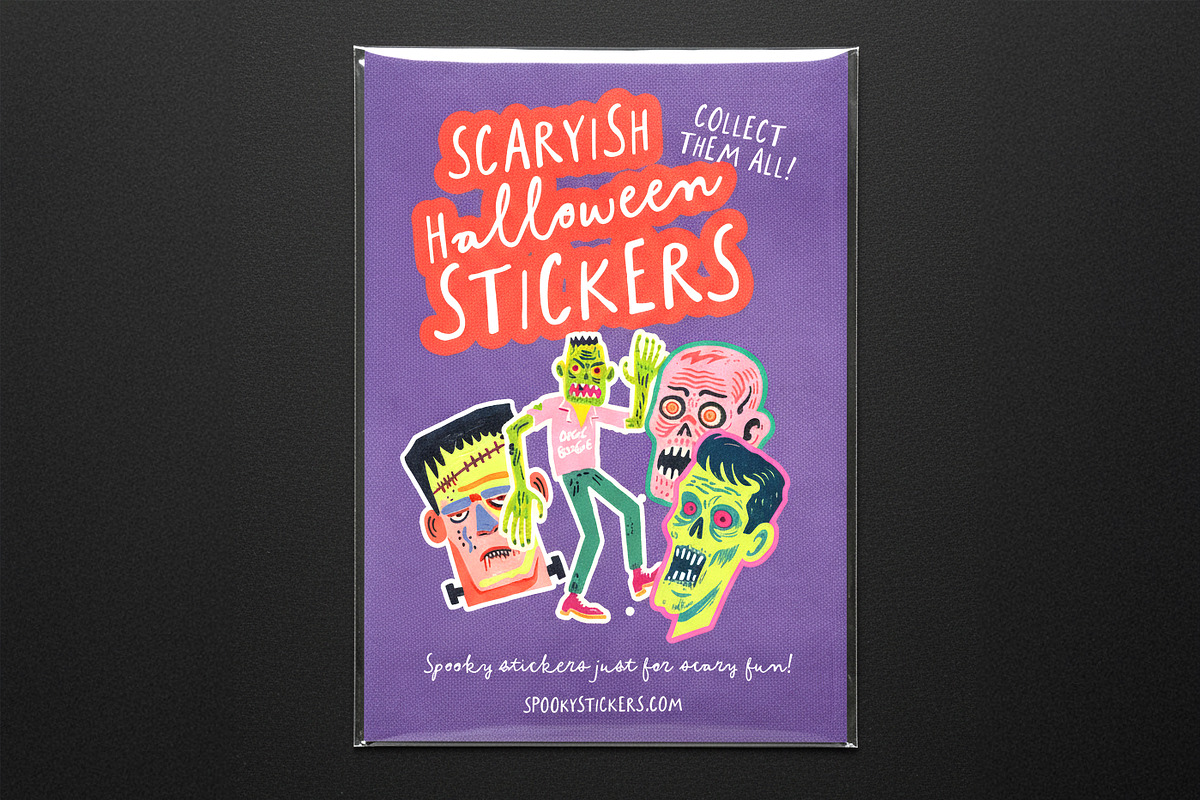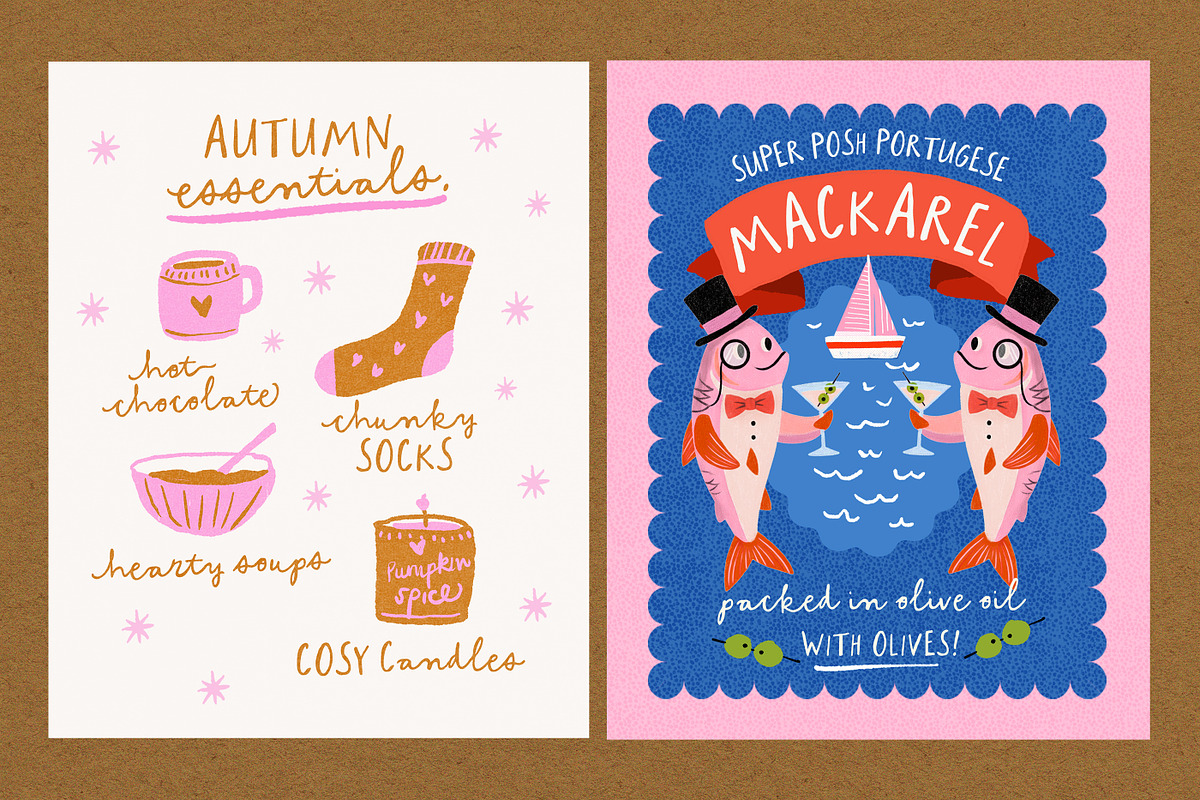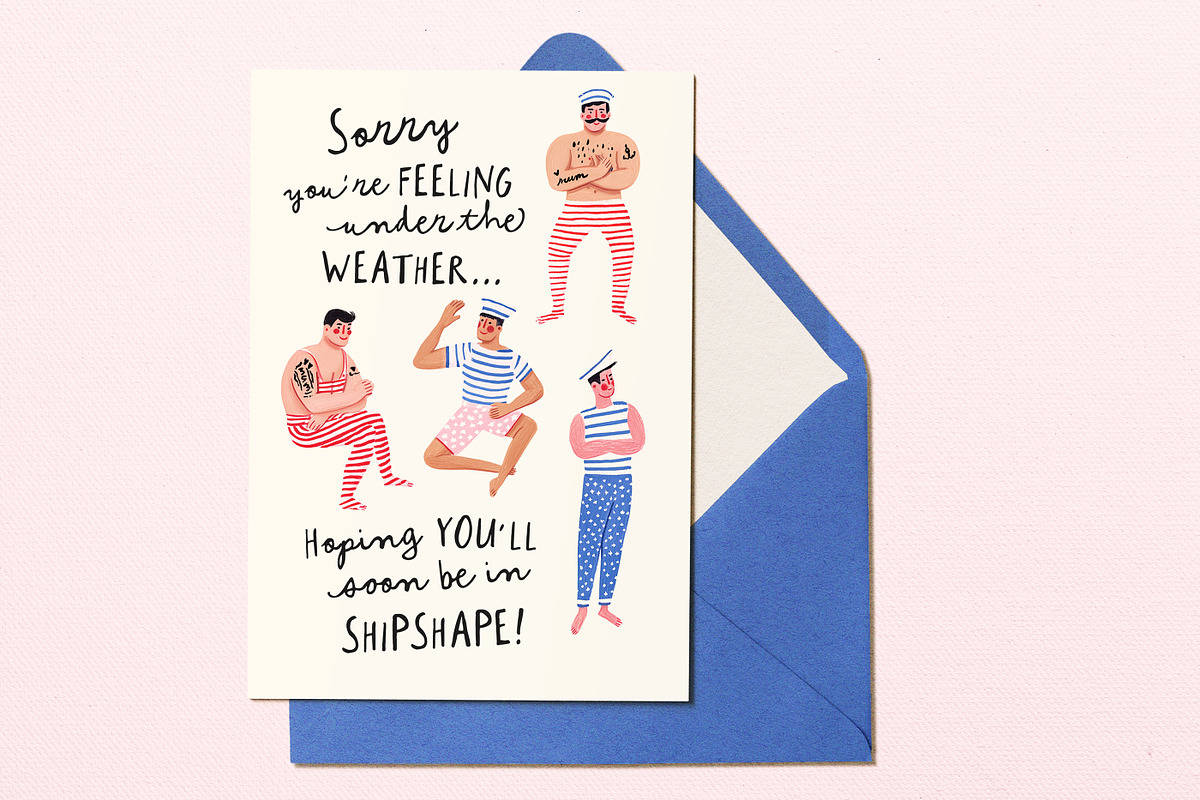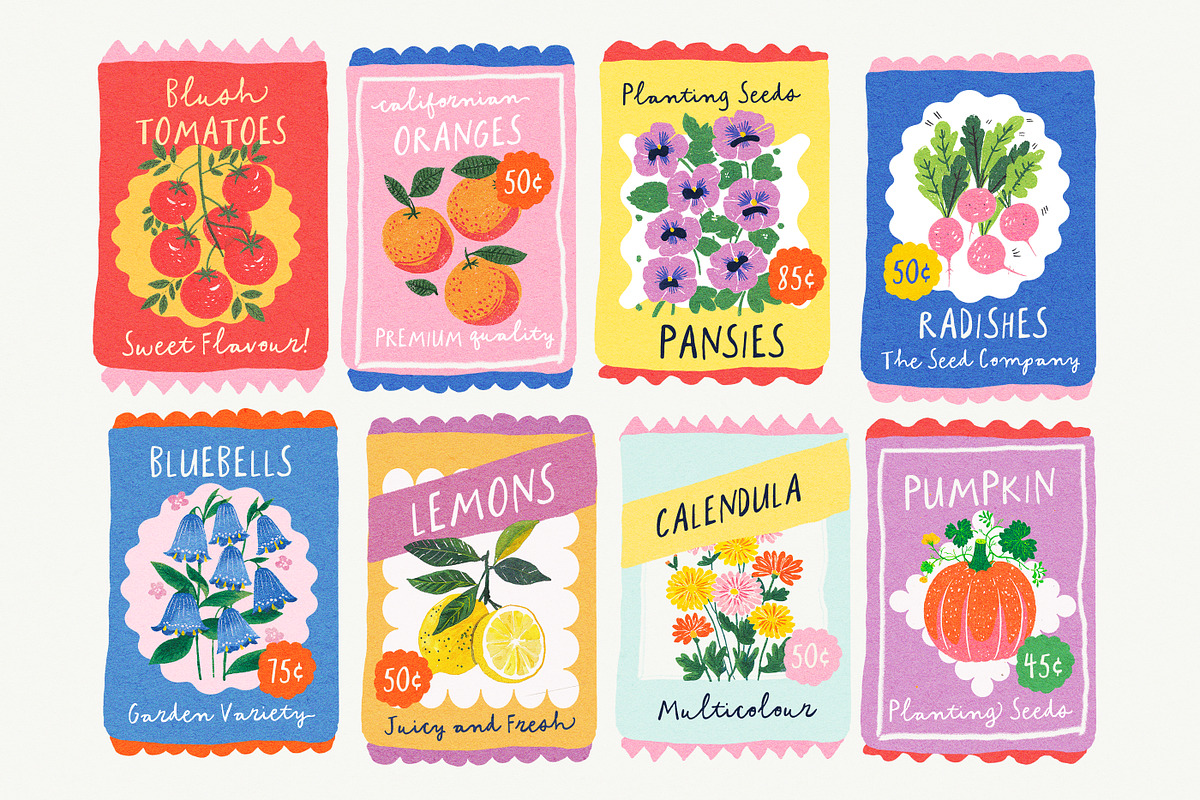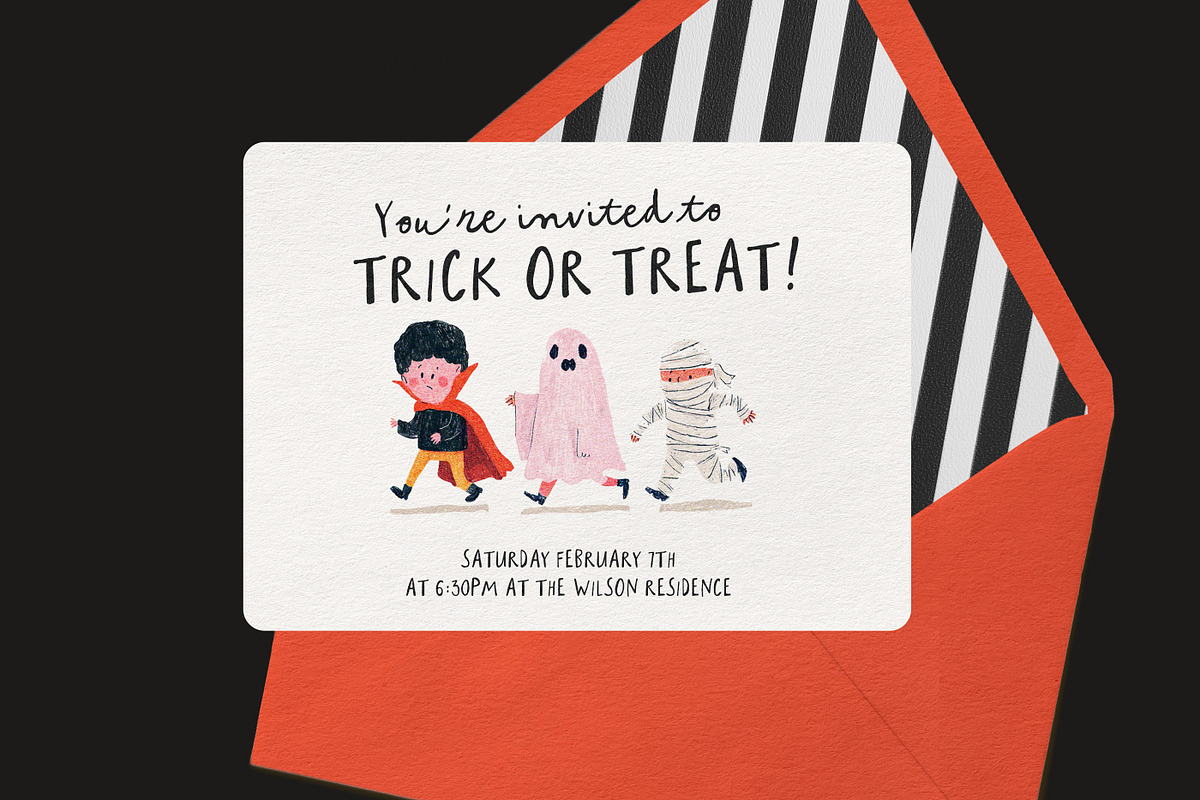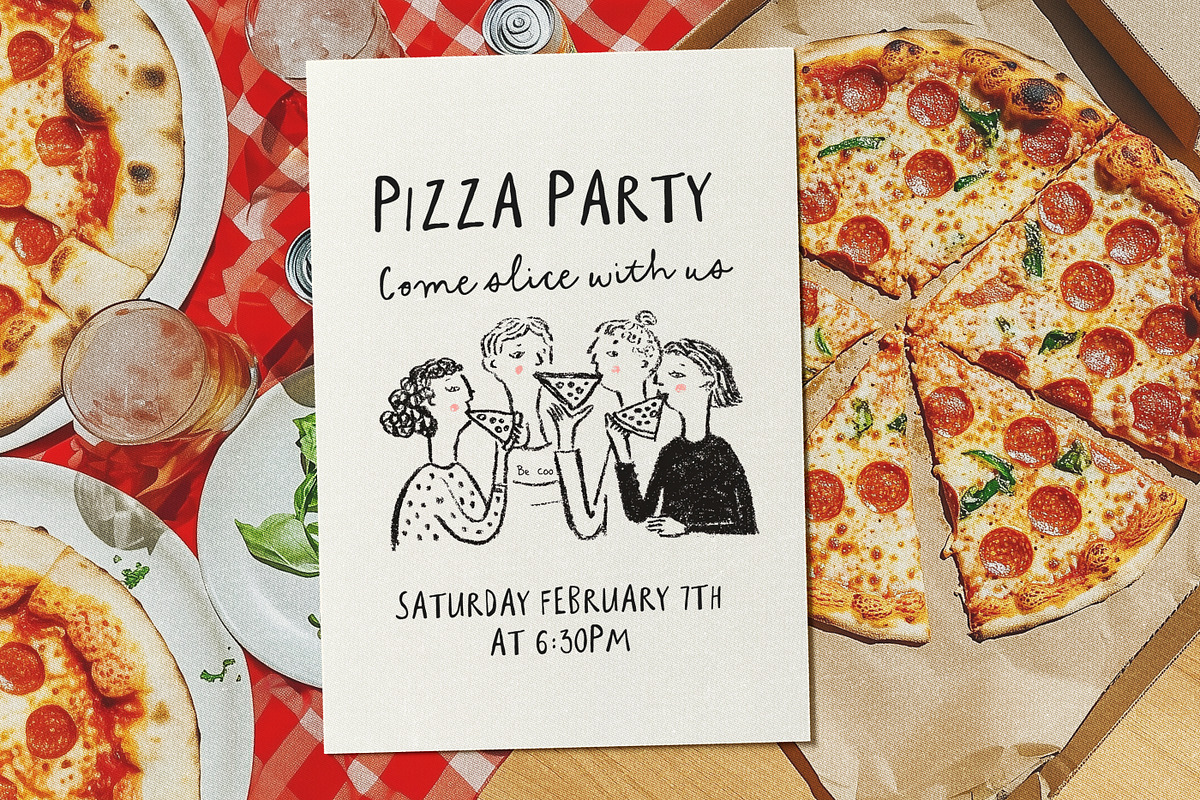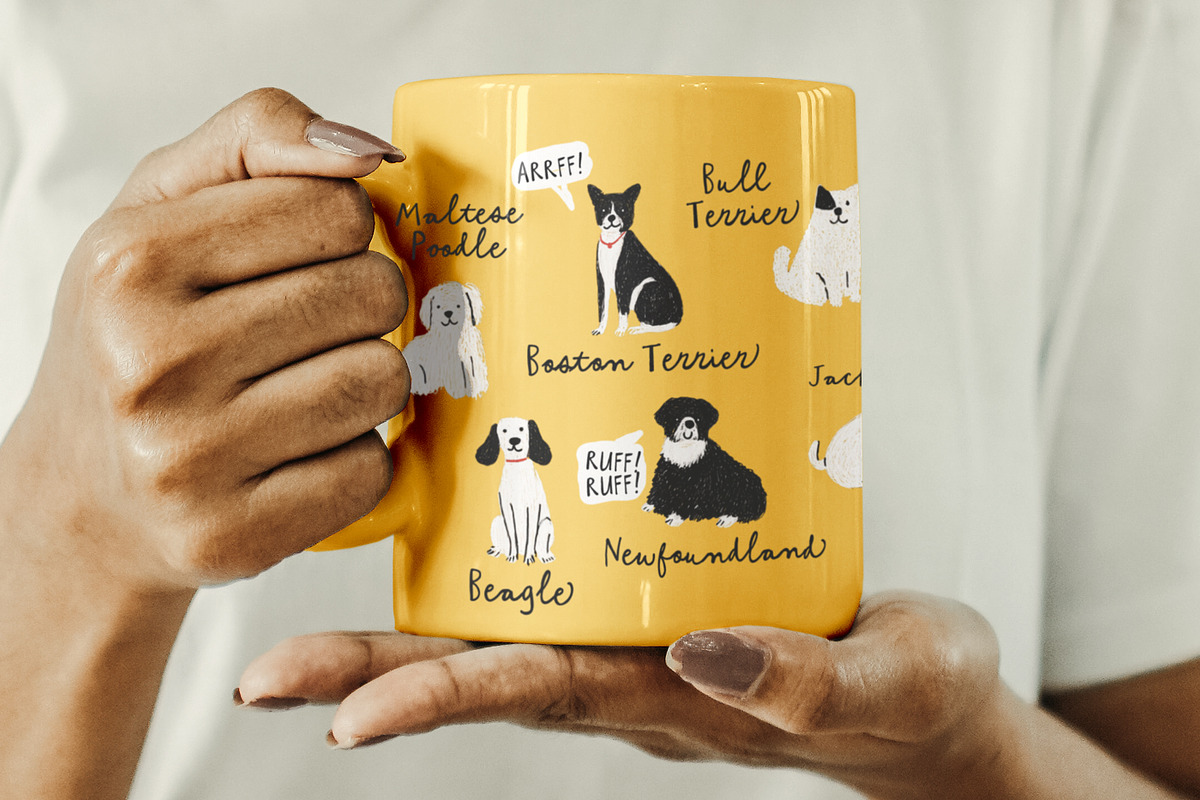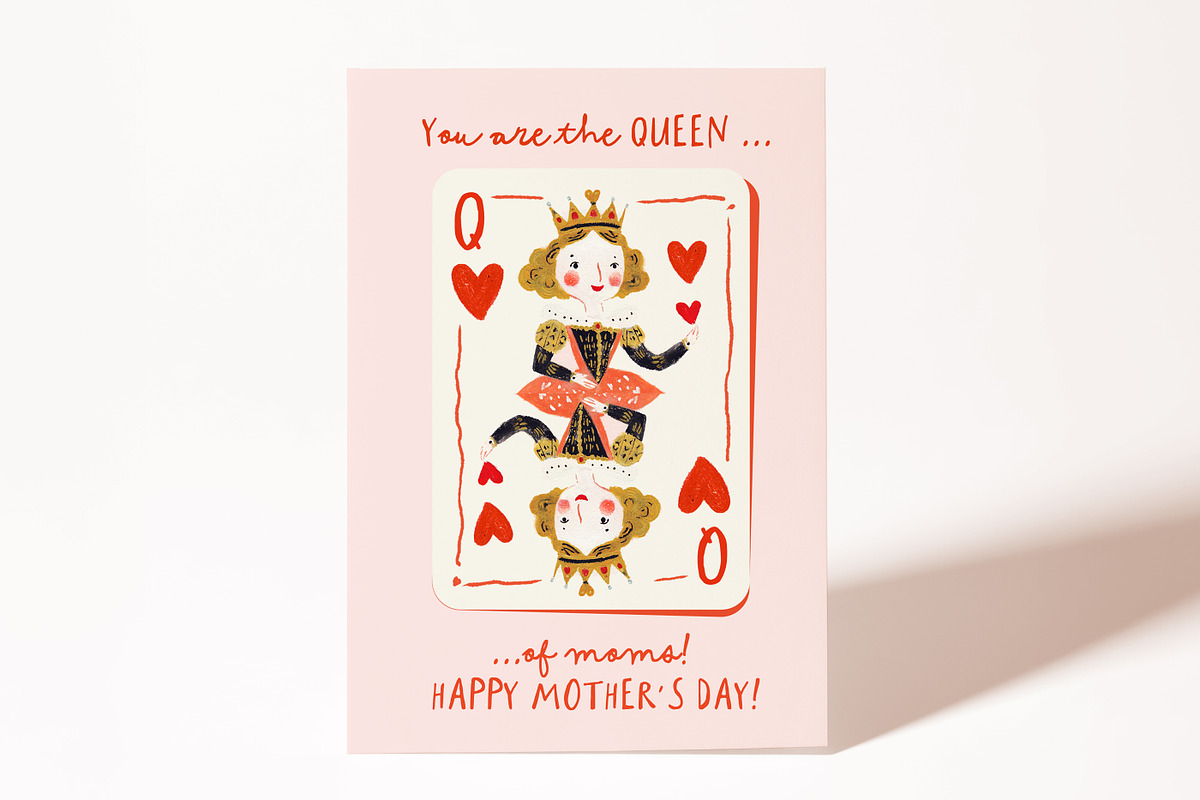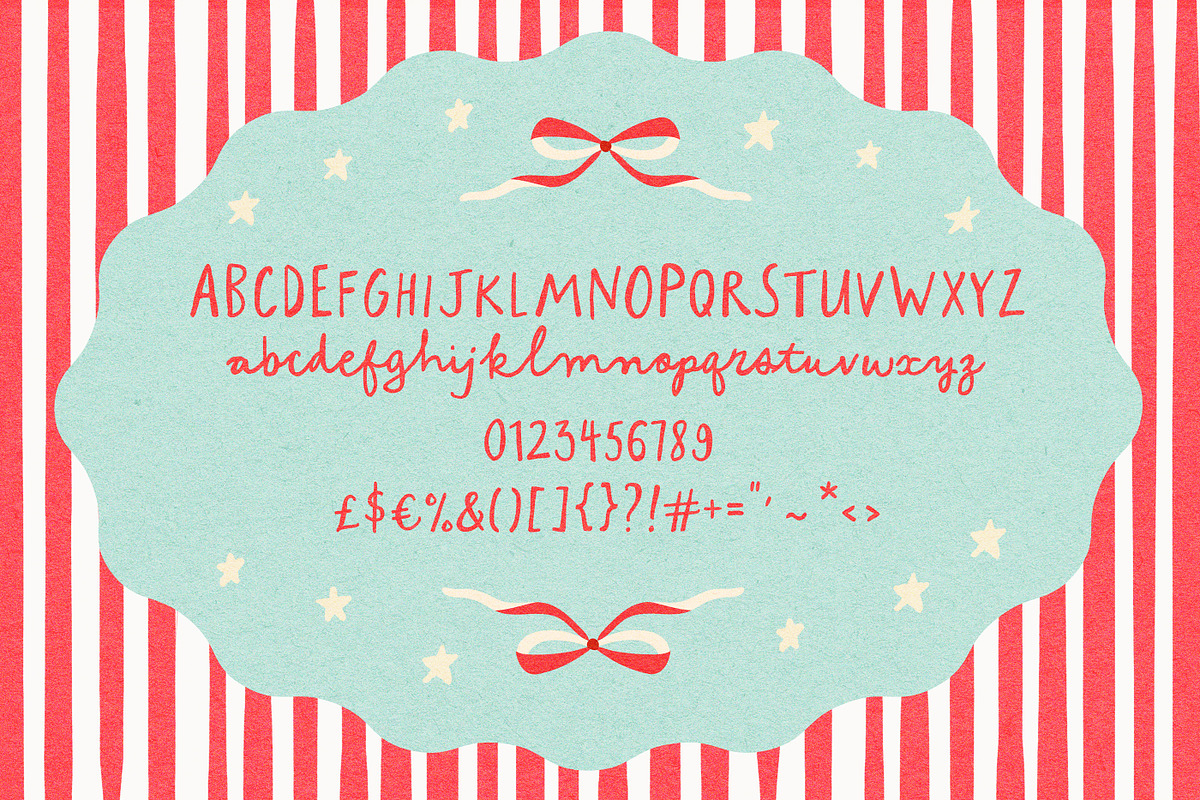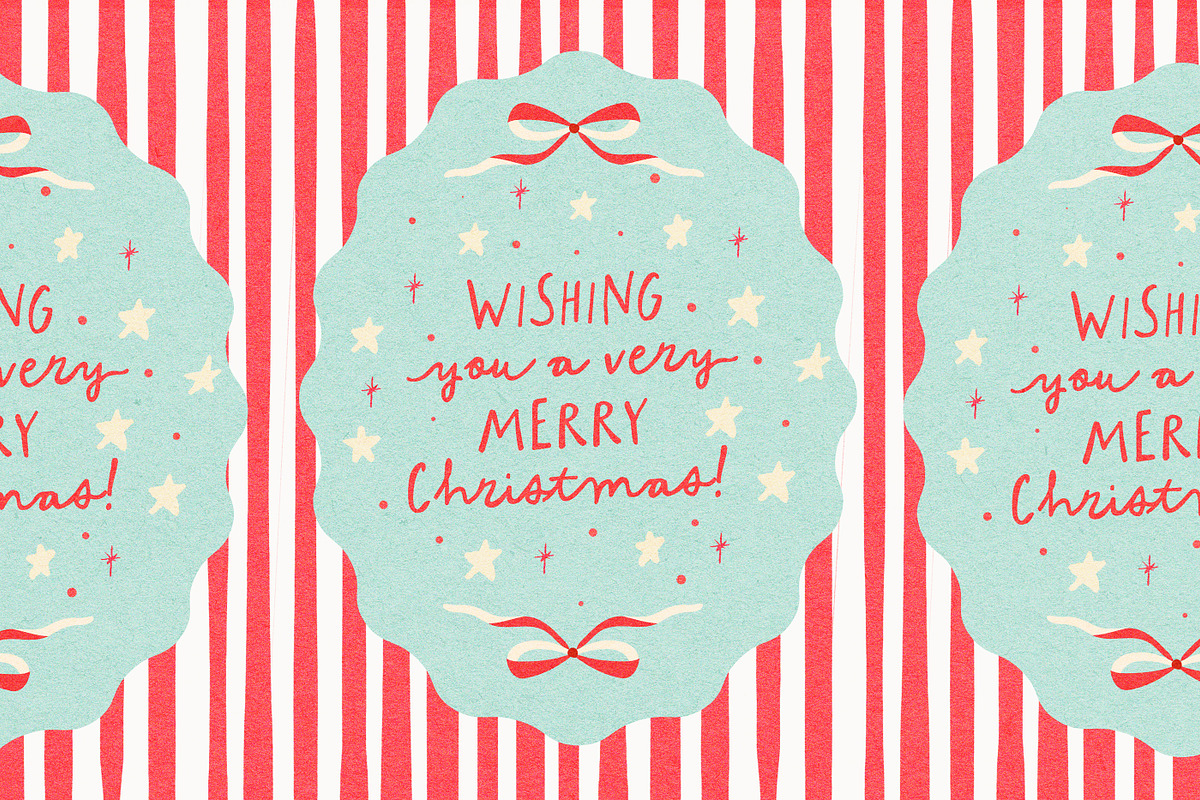
Everything's Peachy
Say hello to 'Everythings Peachy'! A cute little handwritten font that acts like a Script and Caps Duo :)
Type with the uppercase for the All-caps look , and then just with the lowercase for the script look. Perfect for greeting cards, quaint illustrative works, cute packaging, invites, whimsical labels and so much more!
Opentype Extras: You'll also find sweet little end and beginning swashy characters for the lowercase letters , and some commonly found ligatures to make it look more natural!